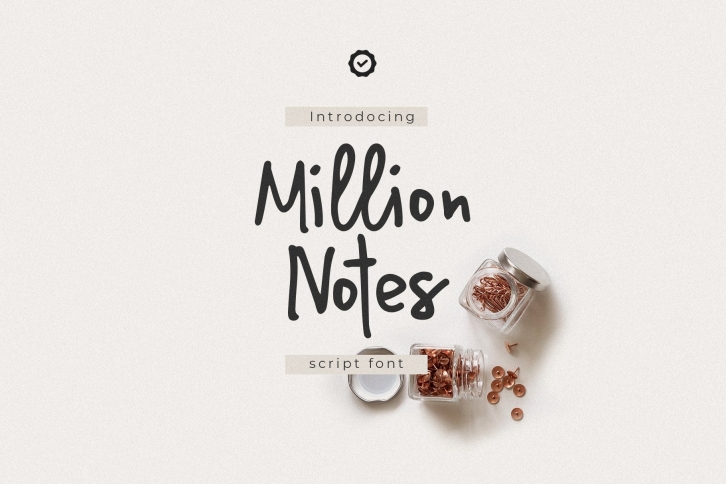
Introducing my new font Million Notes, which imitates quick hand writing. Perfect to demonstrate any notes, signs and reminders. Includes upper and lowercase standard characters, punctuation, numerals and special glyphs, so the font can be used with most of the European languages.